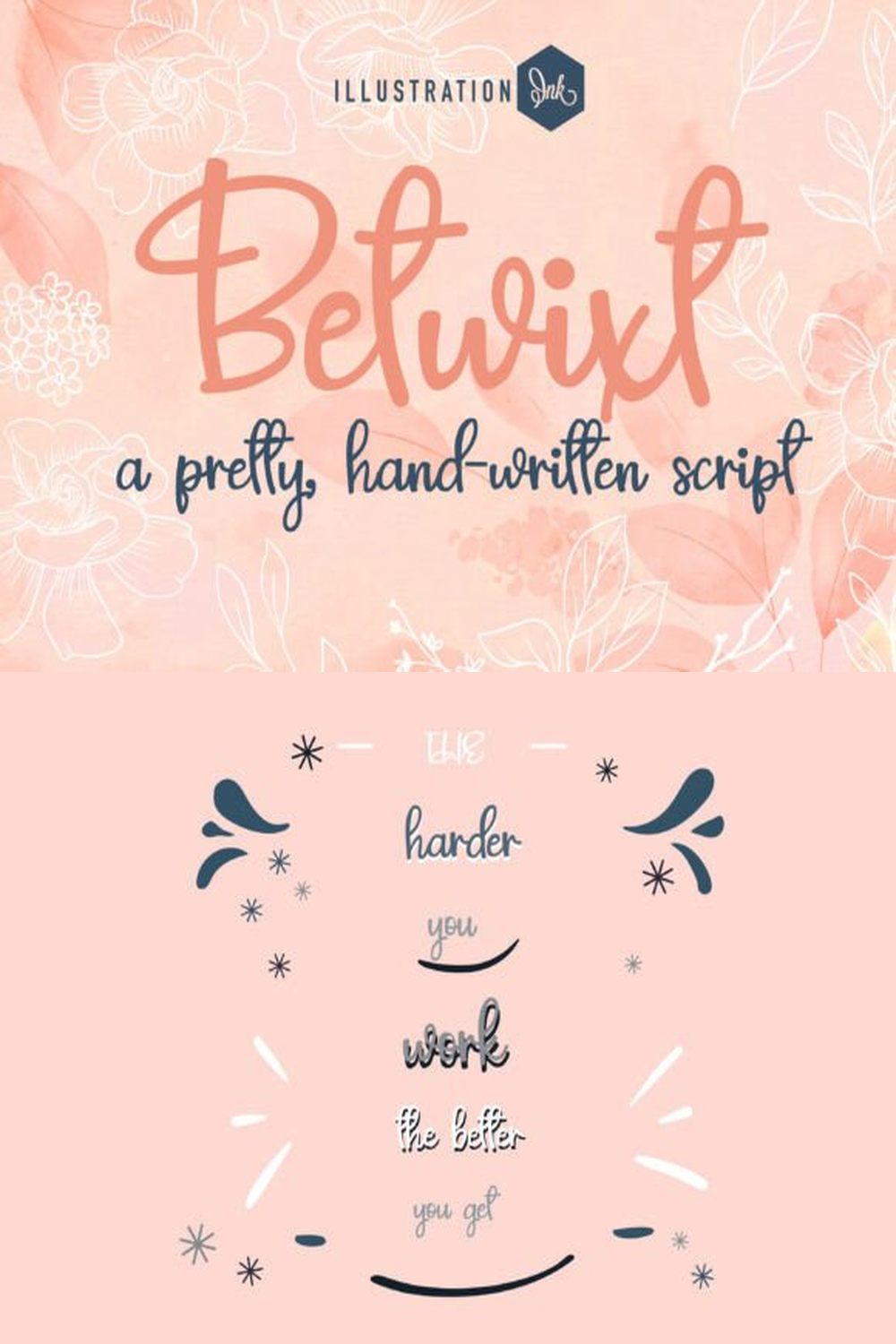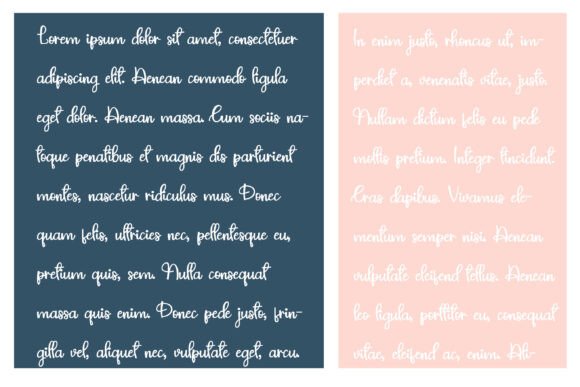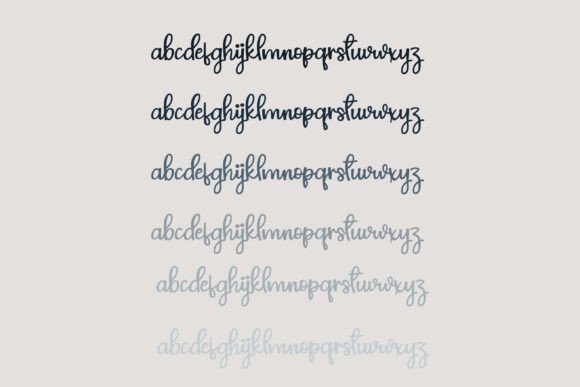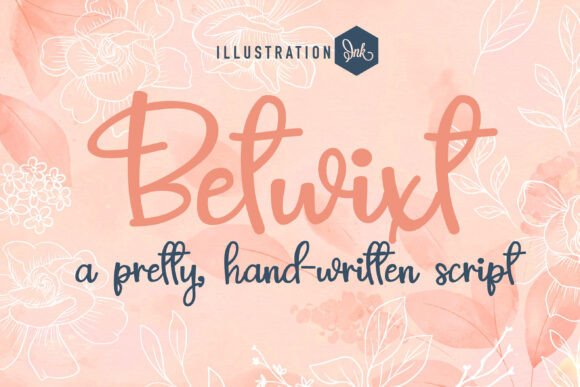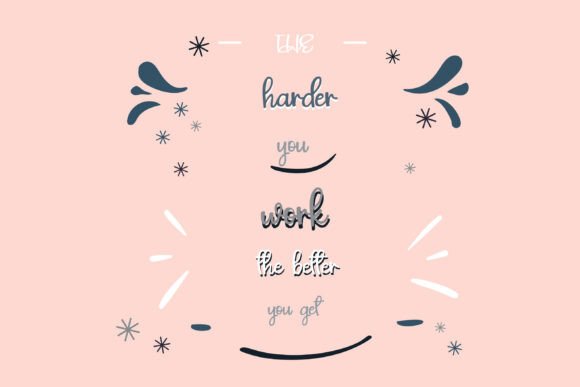
Betwixt Font
About the Betwixt Font
Crafted with precision, the Betwixt Font is ready to bring your ideas to life. This hand-written script is a beautiful cursive with a hand-crafted quality.
Bold and light version included.